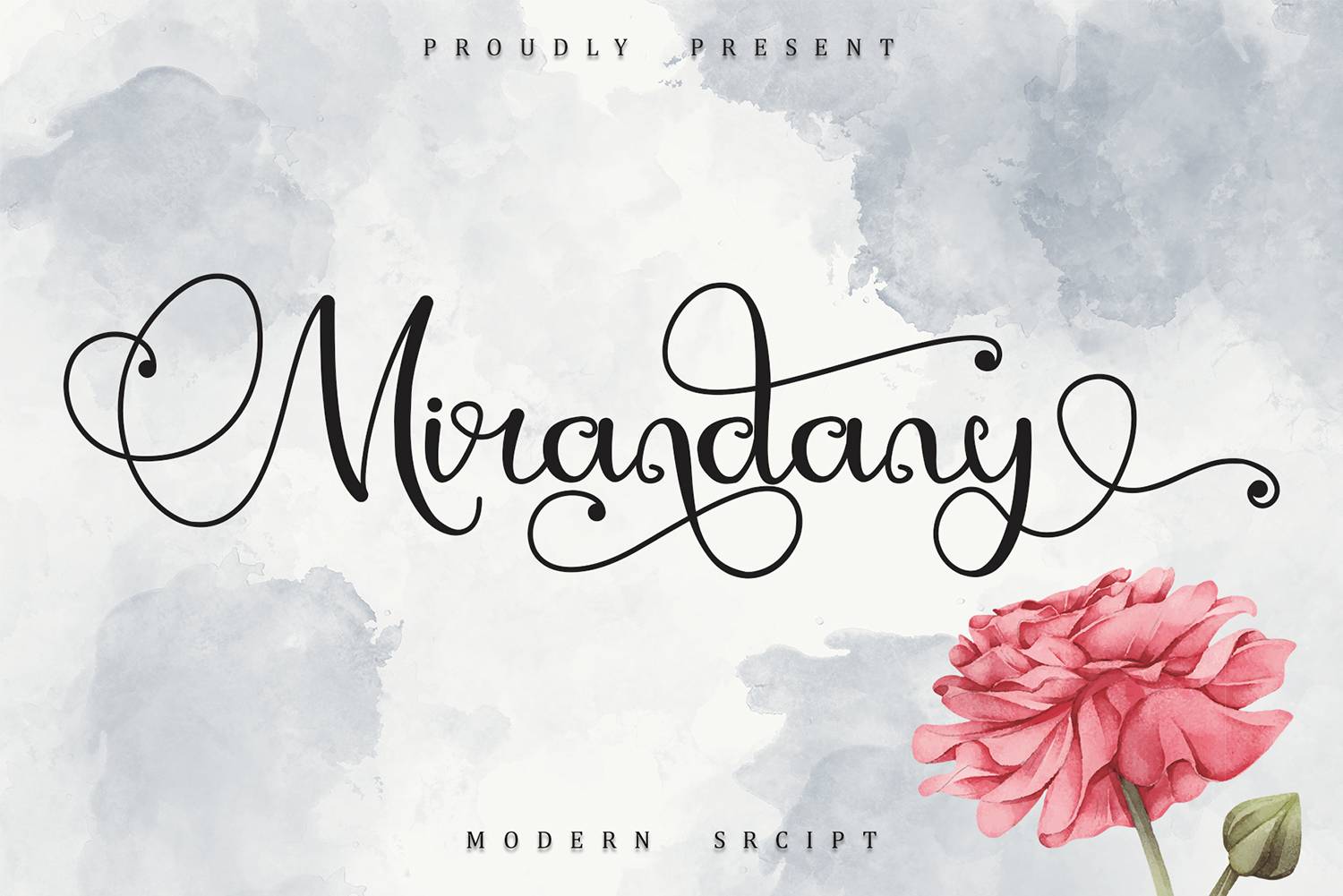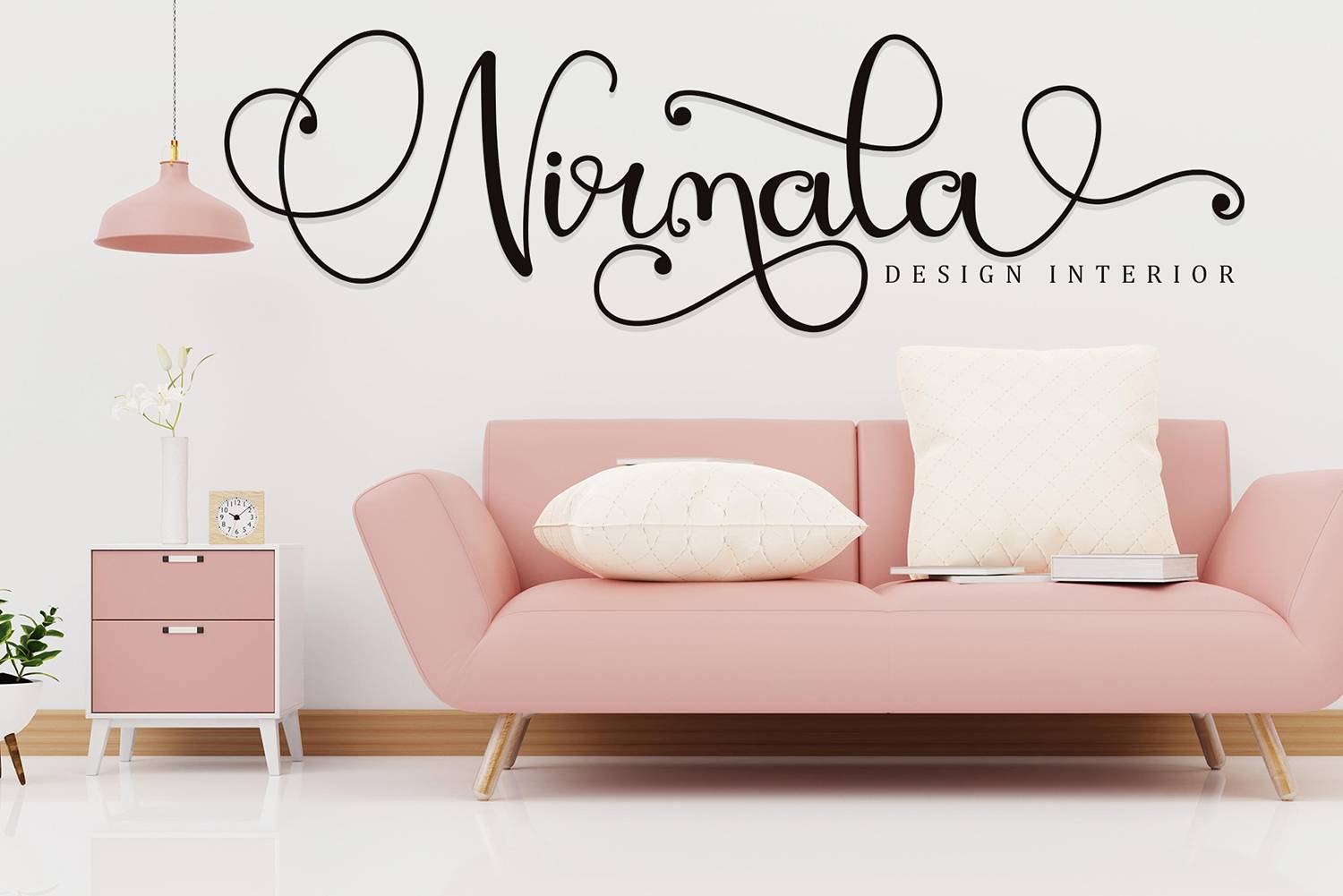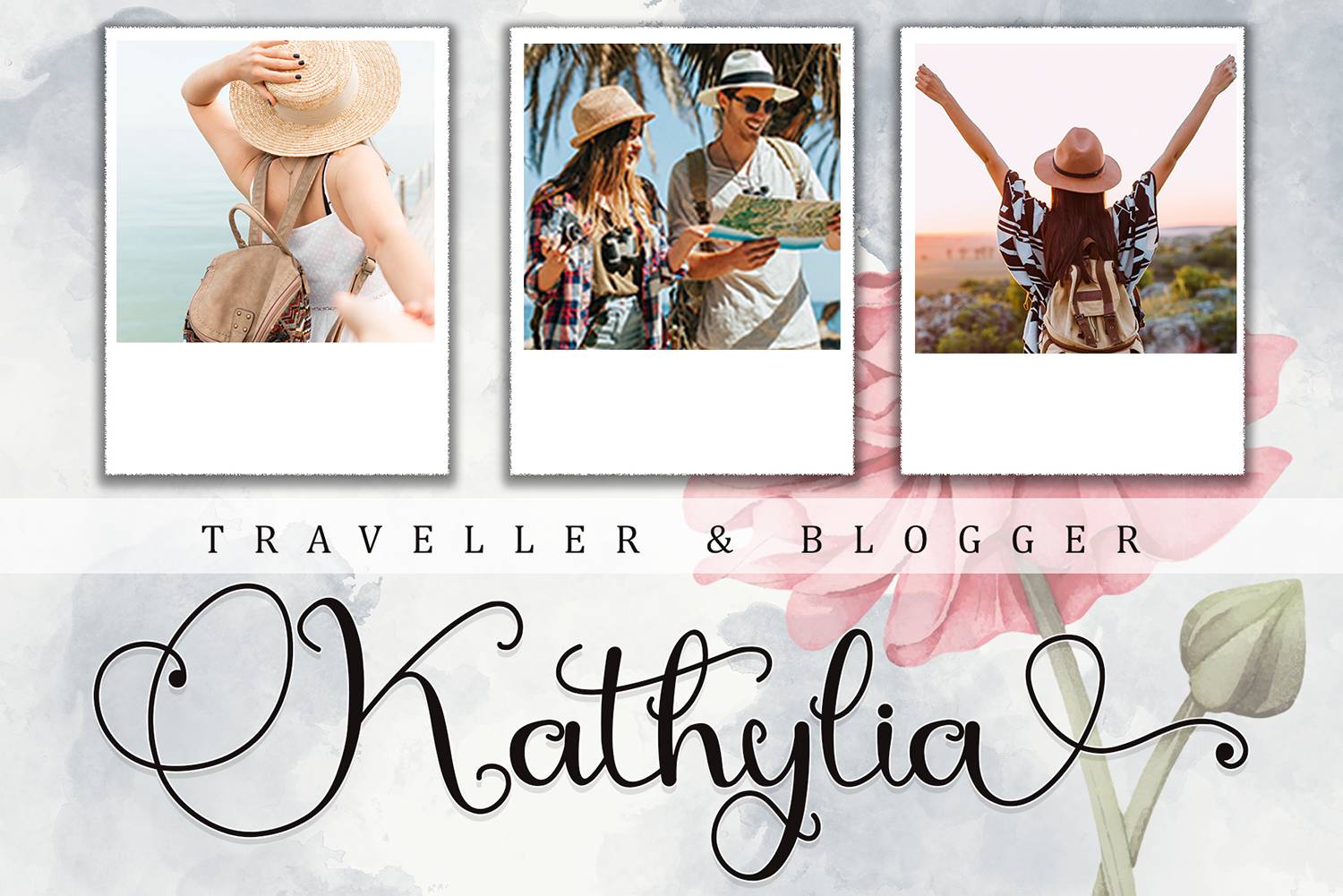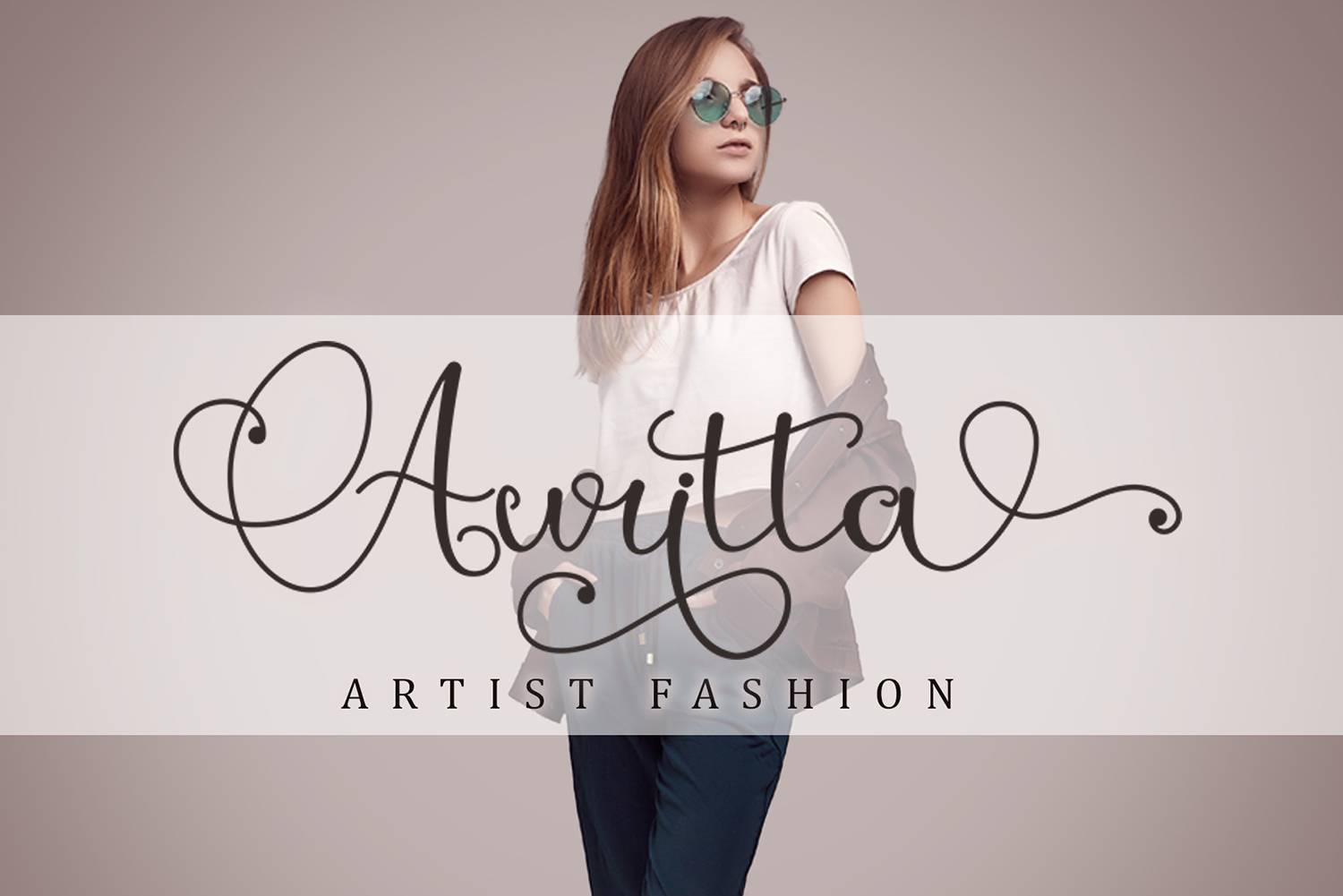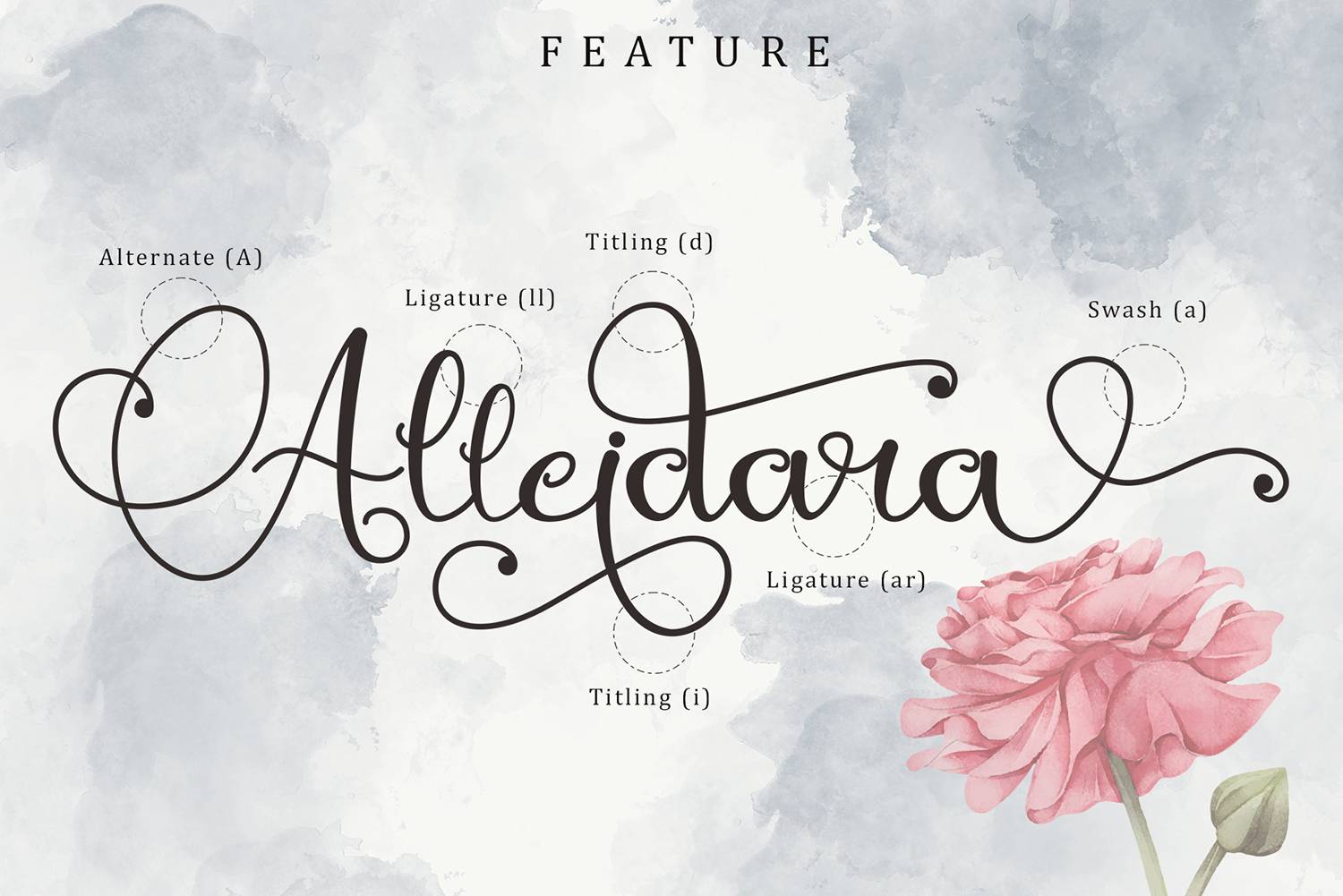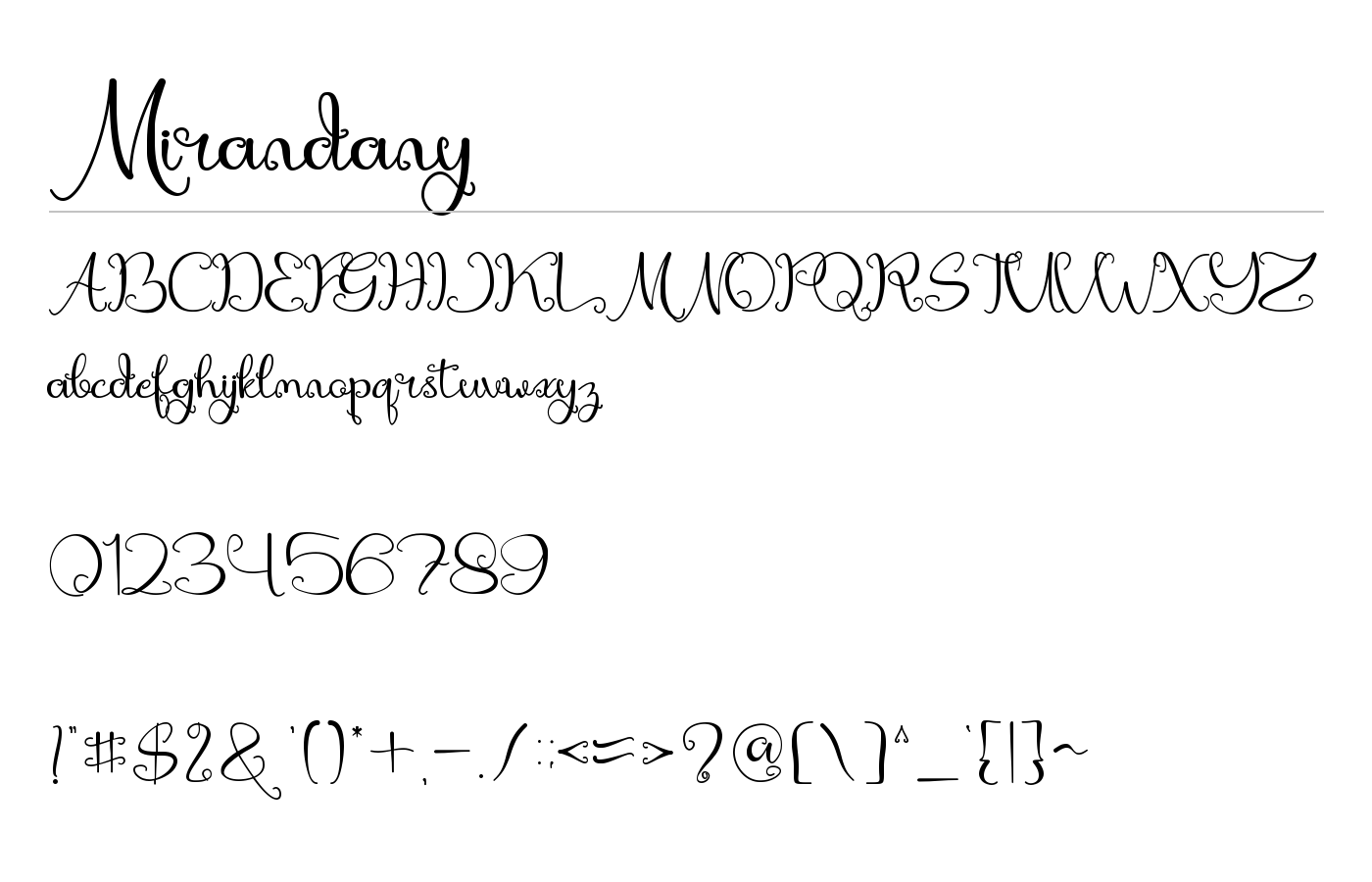
Mirandany is a delicate, decorative script font characterized by elegant, flowing lines and intricate swirls in both uppercase and lowercase letters. Its fine, light strokes and whimsical curves give it a romantic and playful feel, making it ideal for creative projects, invitations, and branding that seeks a charming, handcrafted look. This font shines in designs that need a touch of graceful sophistication and artistic flair.
Mirandany Font
About Mirandany Font